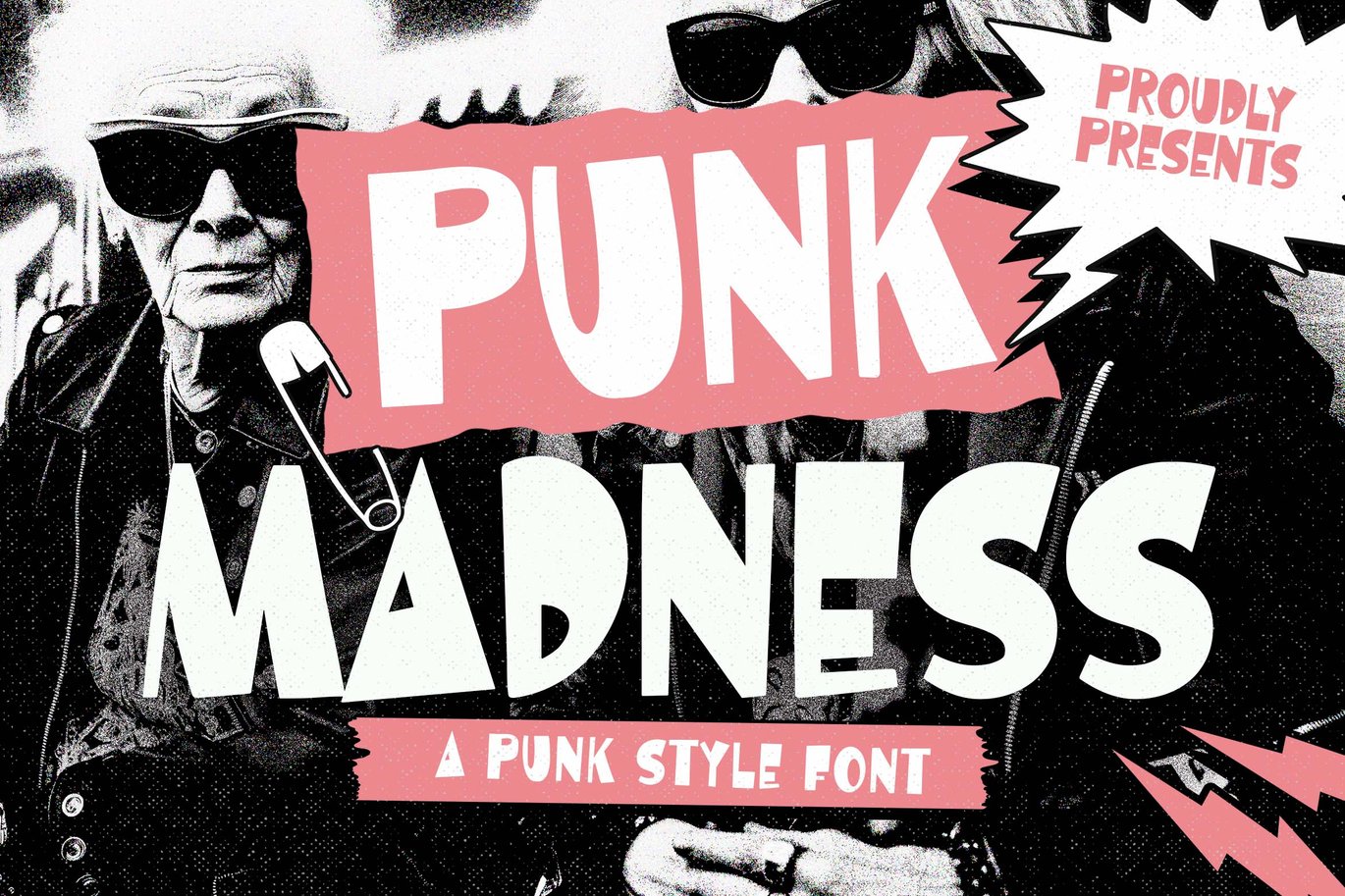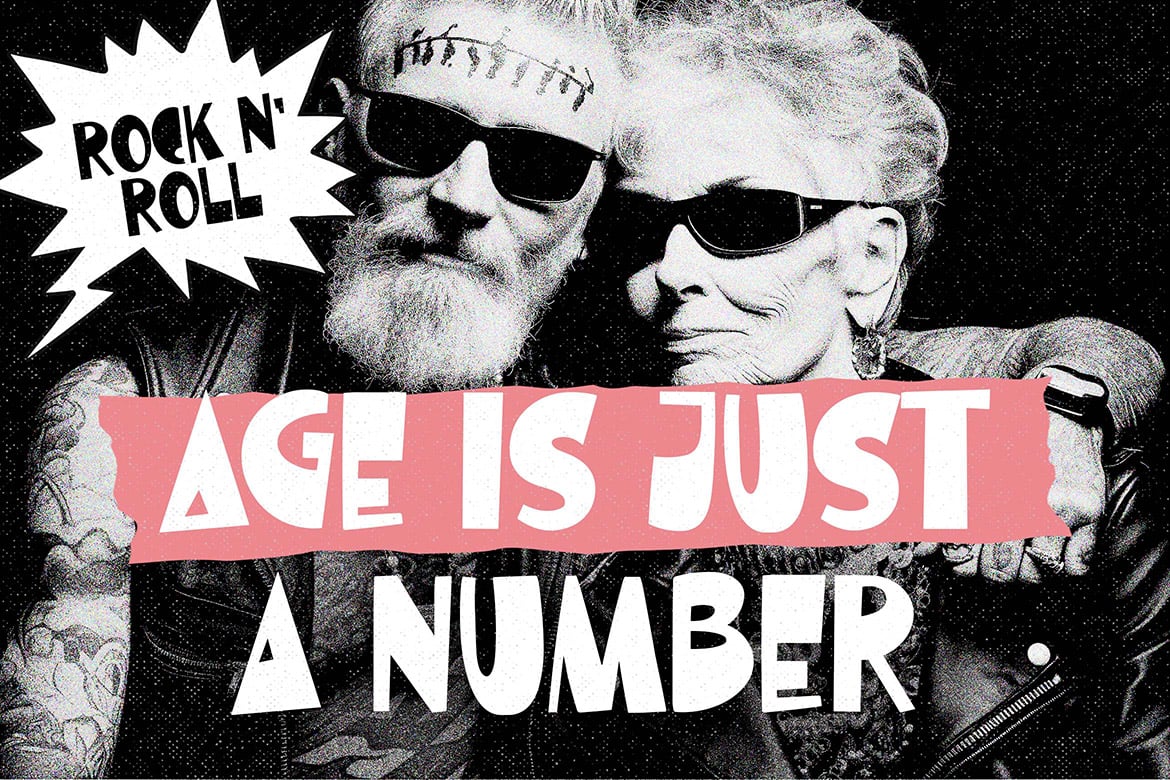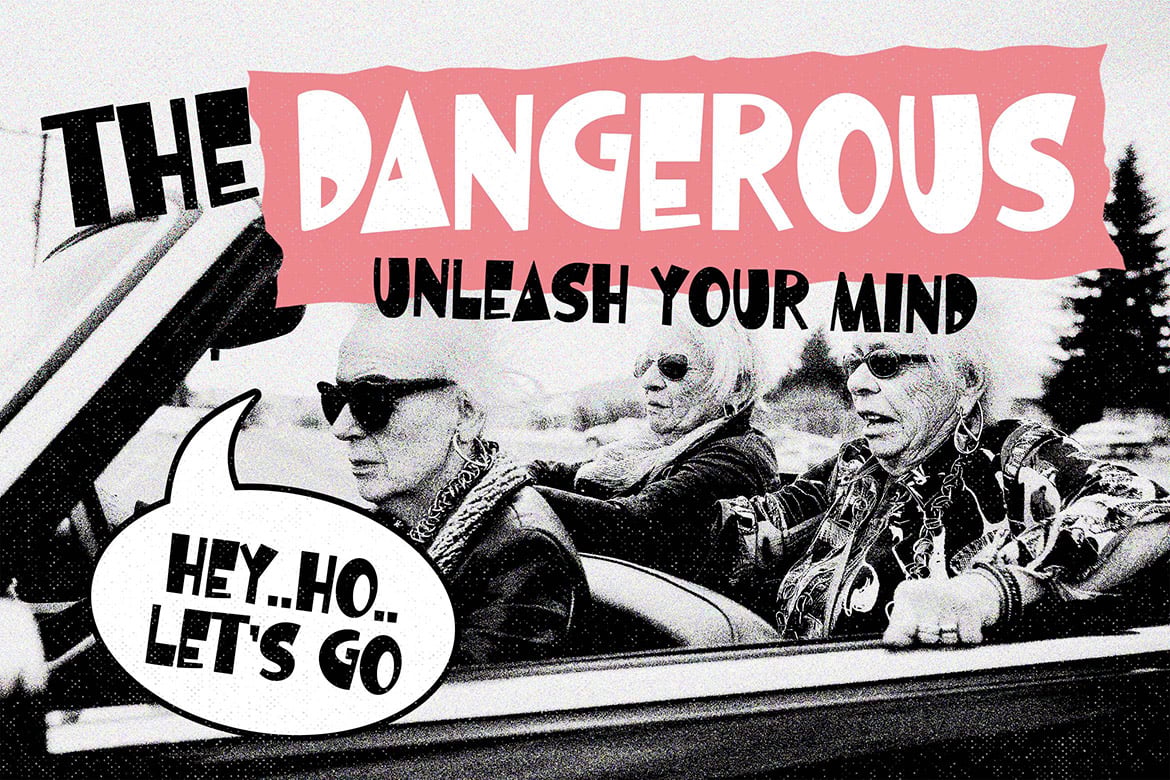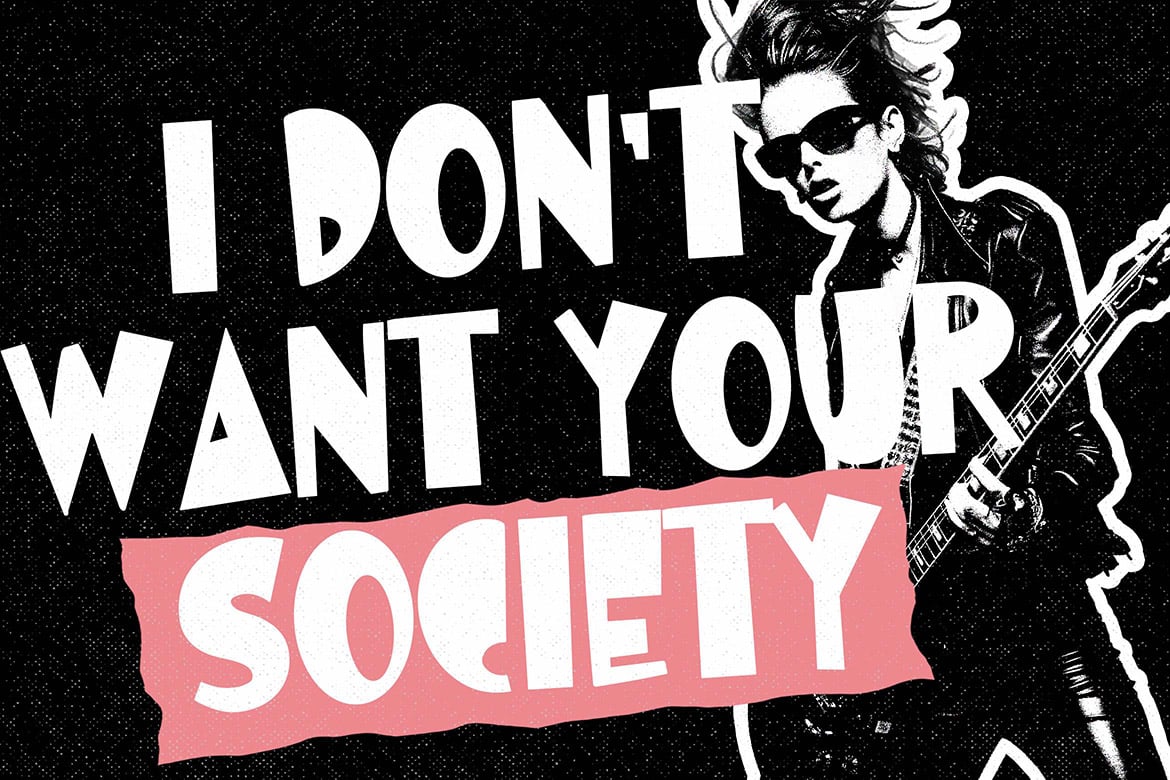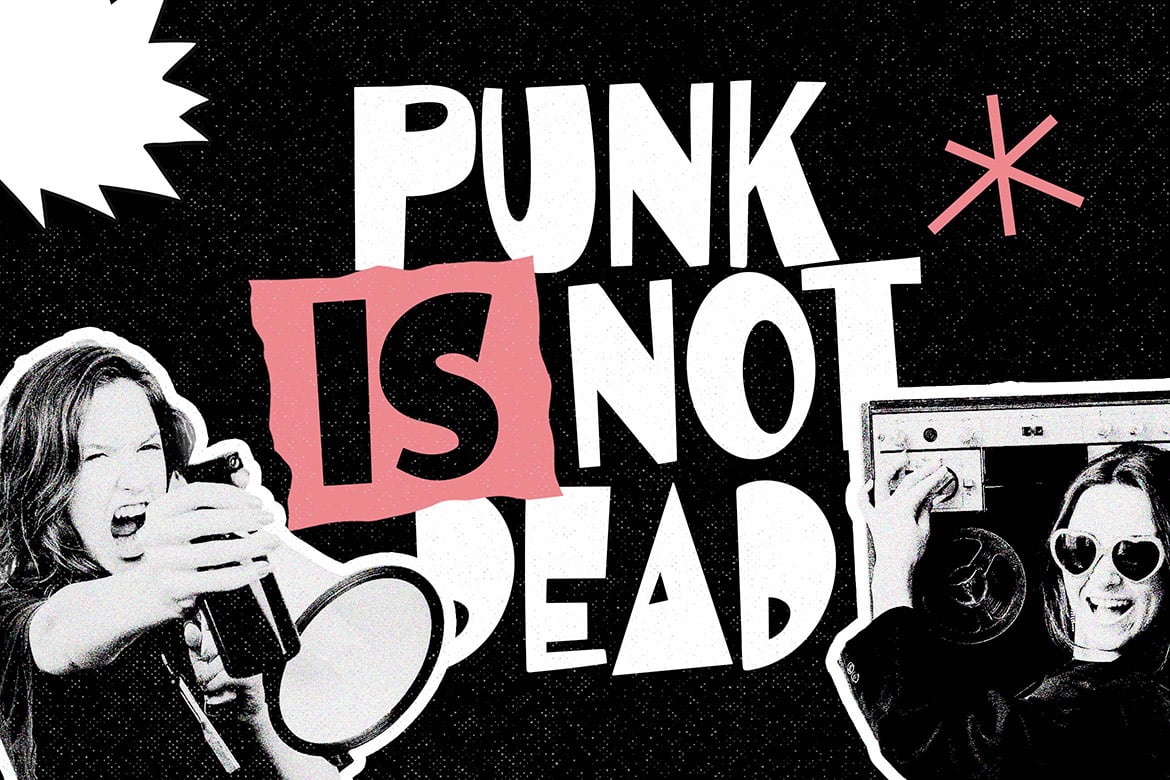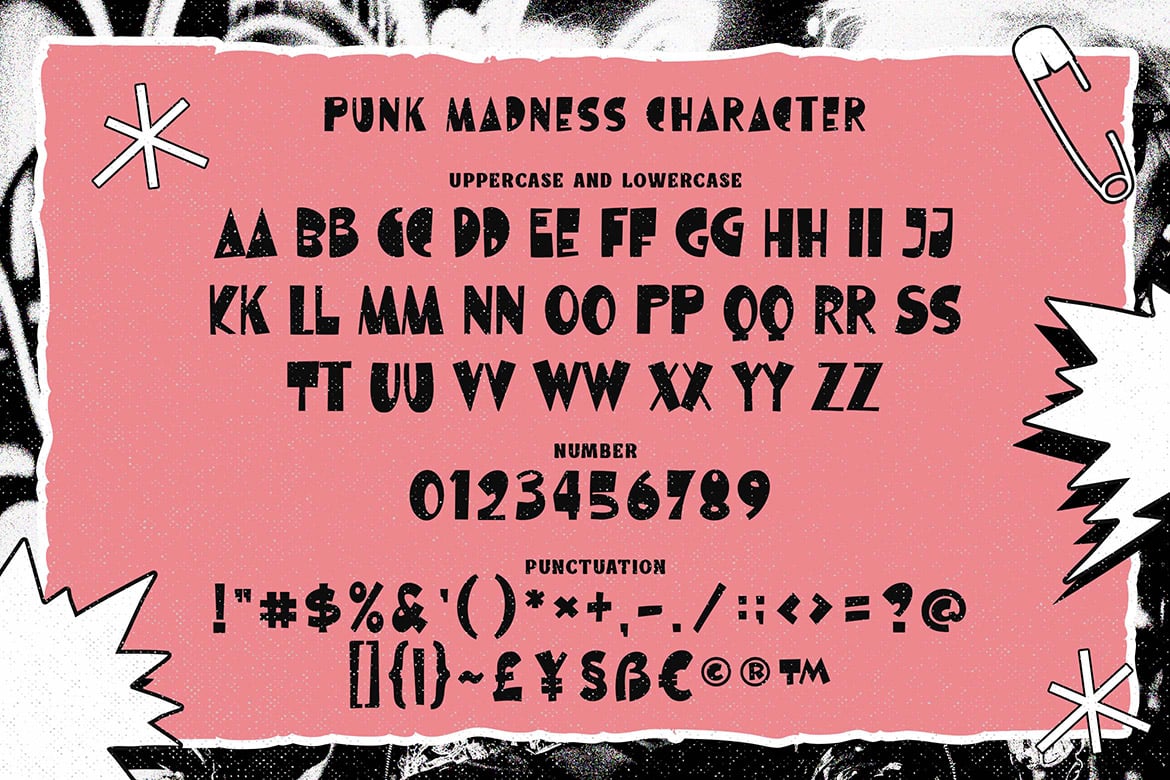
Punk Madness a Punk Style Font
Hello, awesome people! This time, we have a new font called Punk Madness a punk style font by Blankids Studio.
Punk Madness a punk style font is made for any professional project branding, such as logotype, watermarks, poster, branding, promotions, product packaging, etc. Every letter has a punk design theme.
Punk Madness font includes a full set of food theme uppercase and lowercase letters, numerals and punctuation. This font has a punk style. See the previews above to get some inspiration on how to use them. Happy designing!